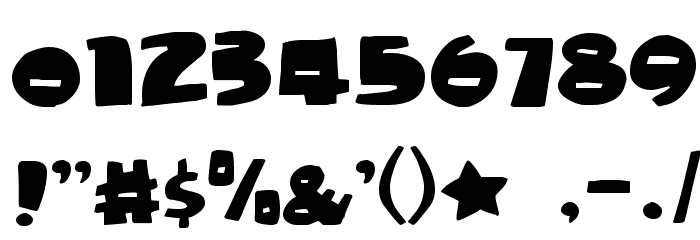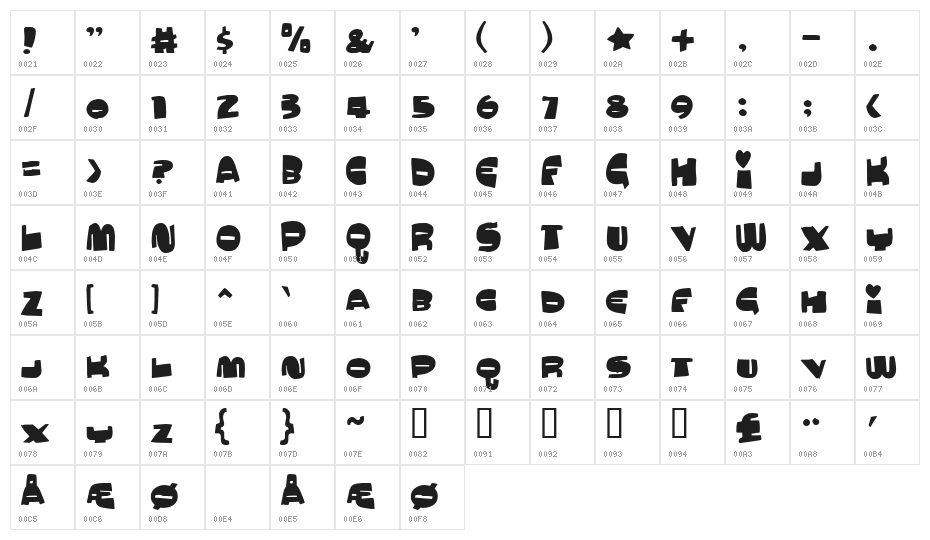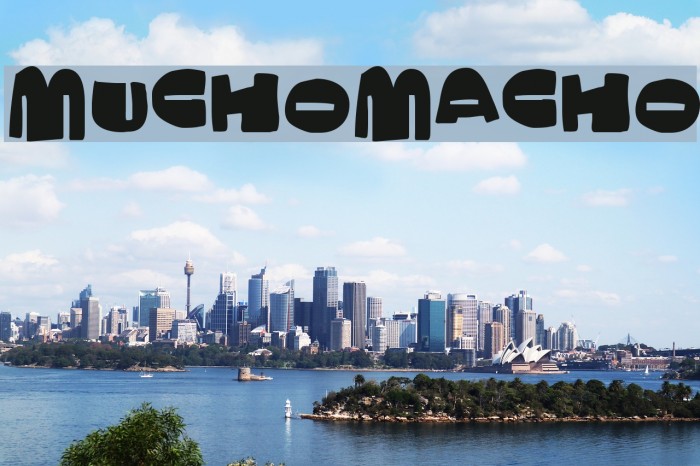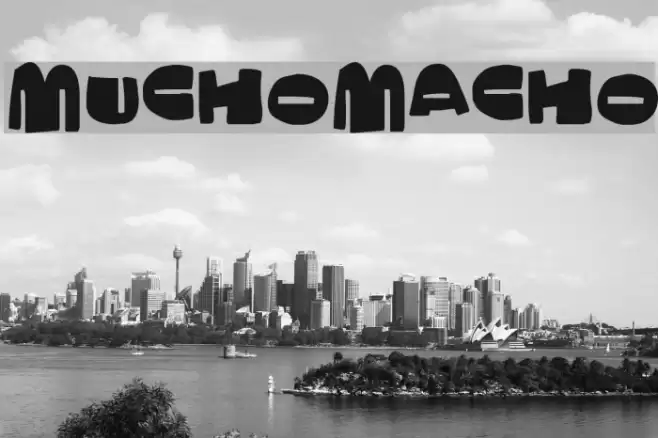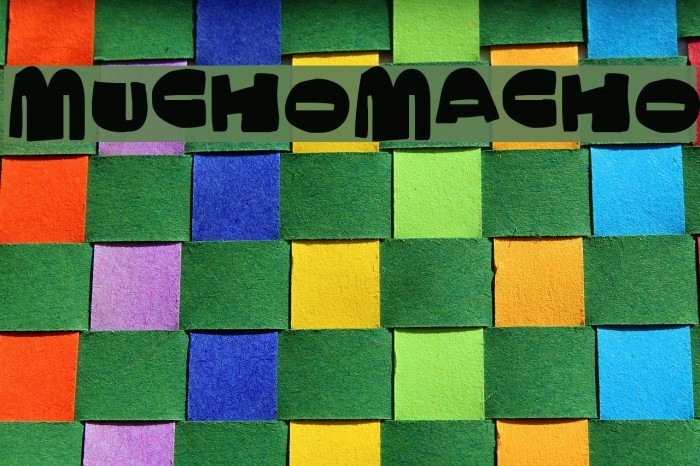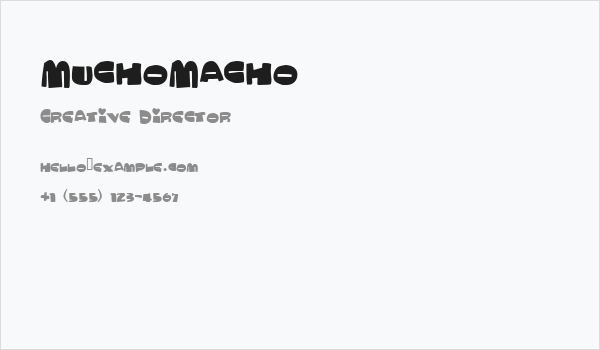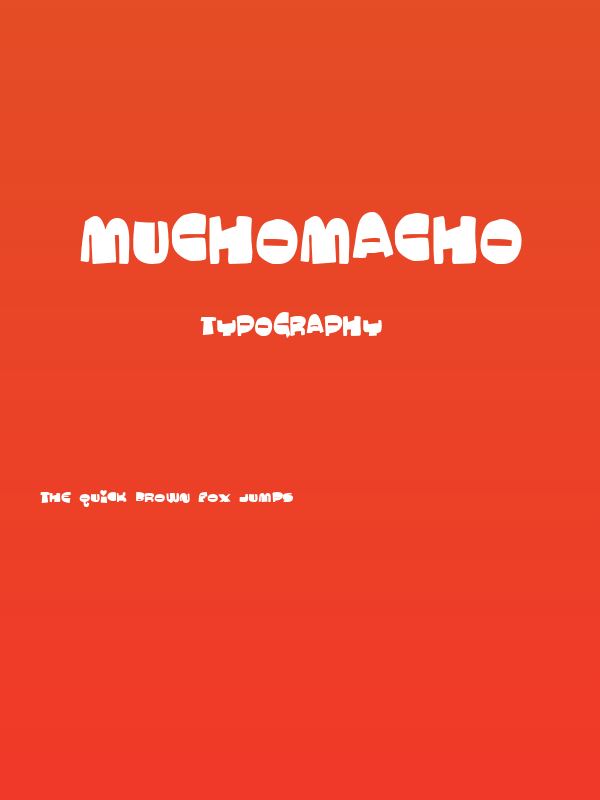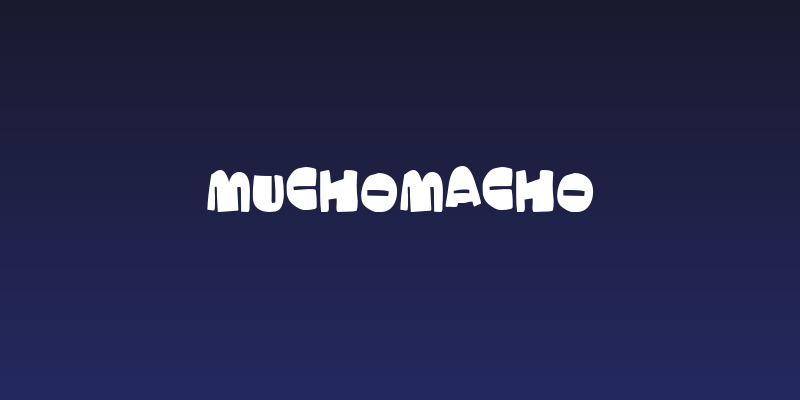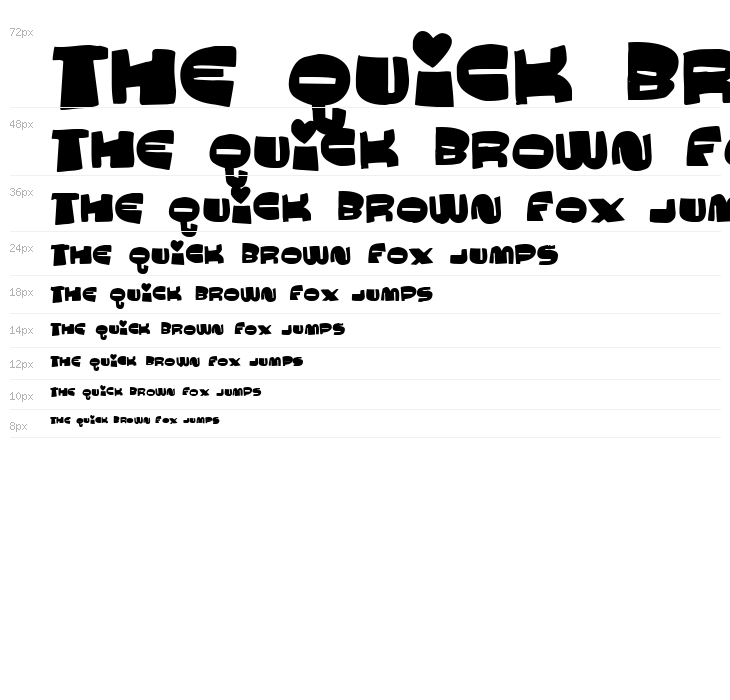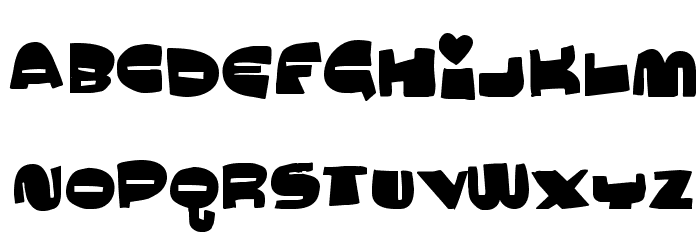
MuchoMacho Font
| Estilo geral | Playful, Whimsical |
| Projetos propostos | Ideal for children's books, playful branding, party invitations, and creative posters. |